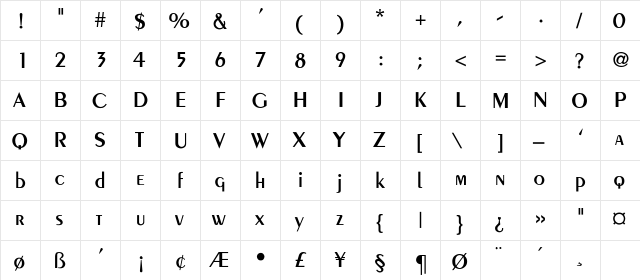
Sailor Regular
Design Context for Sailor Typeface
Sailor takes a measured approach to typography — its balanced proportions and neutral character make it a reliable workhorse for both digital and print work.